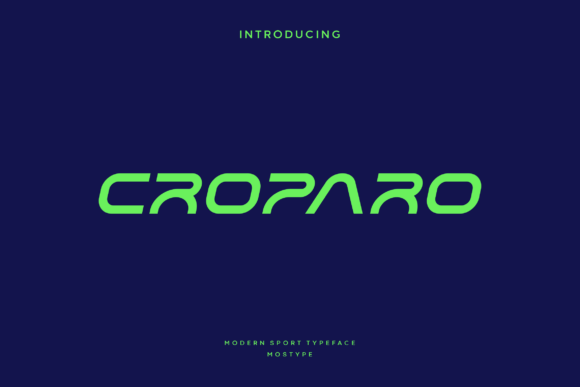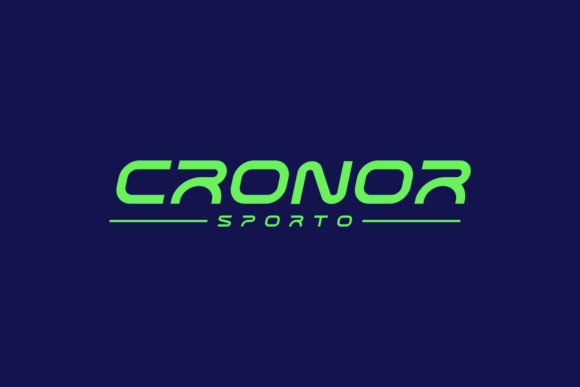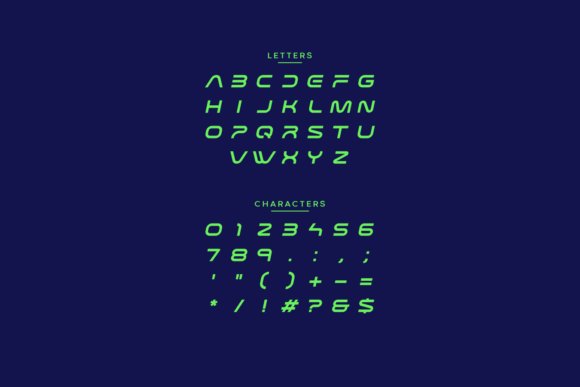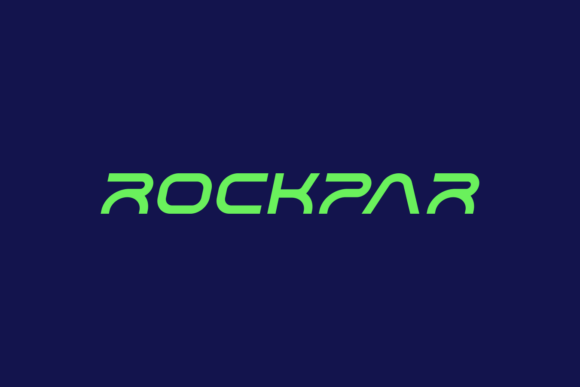
Croparo Font: A Modern, Bold Font for Futuristic Logo Design!
About the Croparo Font
The Croparo Font is here to transform your projects with its distinctive character and style. Croparo is a modern futuristic font with unique uppercase, come with all-caps that will make your design looks futuristic and modern. You can use this font for any purpose, especially to make hi-tech and sport, this font is also suitable for science-fiction movie poster. With an elegant and clean appearance that will make it look good when used as a logo design, branding, magazine, headline and various designs that require the feel of the future.
Croparo’s strong geometric forms excel in headlines, logos, and short impactful text for branding campaigns targeting tech, sports, or science fiction themes. Its all-caps nature makes it ideal for posters and packaging where bold statements are needed. However, its limited character set and lack of lowercase letters render it unsuitable for body text or long-form content, including UI elements requiring extensive readability.
Pairing Croparo effectively requires considering its modern, assertive personality. Sans-serif fonts like Futura or a clean geometric sans-serif would create a cohesive, futuristic feel. For a slightly softer contrast, a neutral serif like Garamond or a more elegant serif like Didot could add a touch of sophistication, balancing Croparo’s boldness.
Avoid pairing Croparo with overly playful or script fonts, as these would clash with its stark, futuristic aesthetic. The goal is to complement its strong, modern energy without detracting from its core identity.
Croparo Font Usage Examples
Croparo Font Example